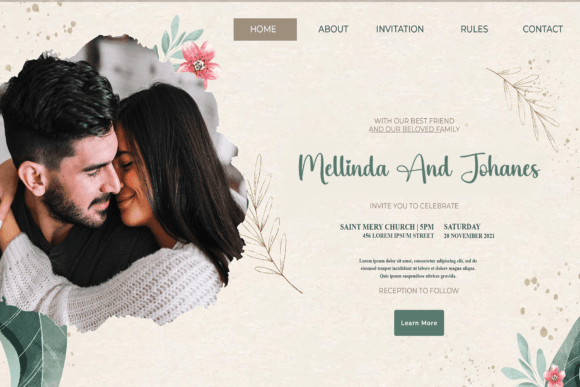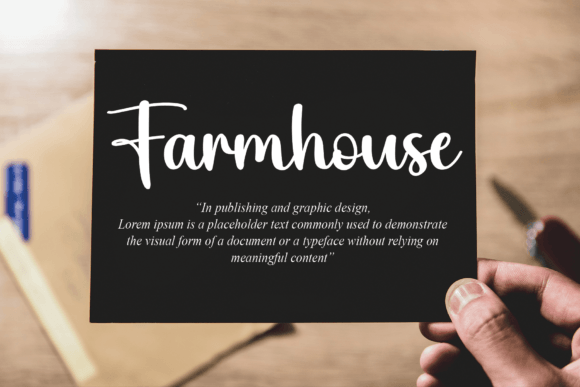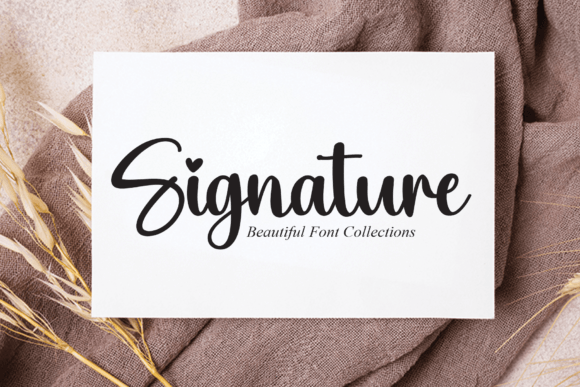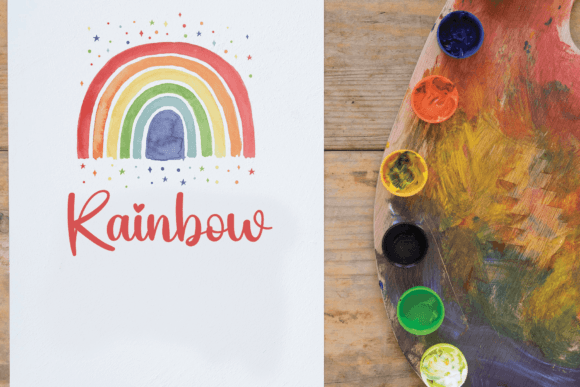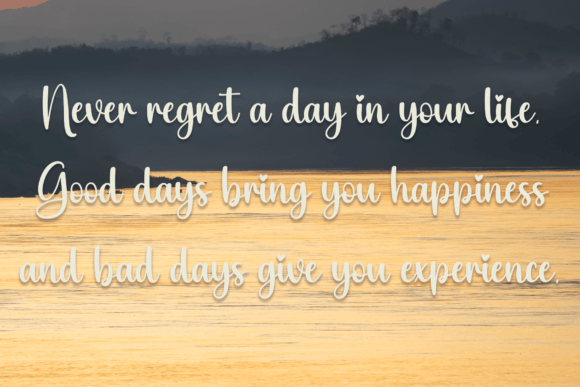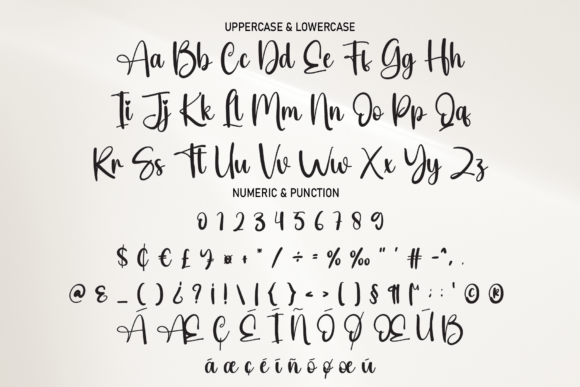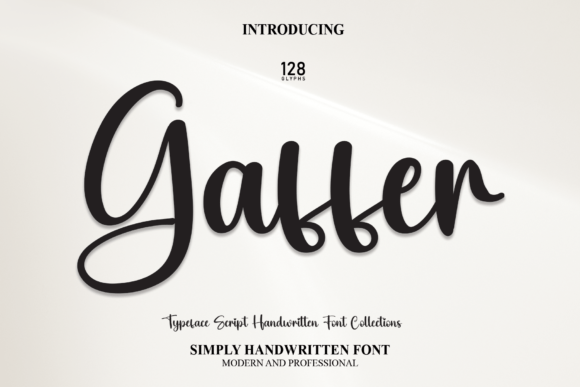
Introducing Gaffer Font: The Sweet and Elegant Cursive Handwritten Font
Are you looking for a font that can add a touch of elegance and romance to your designs? Look no further than Gaffer Font, a sweet and cursive handwritten font that is perfect for a variety of design projects. With its gentle and flowing curves, Gaffer Font is sure to make your designs stand out and leave a lasting impression.
What Makes Gaffer Font Special?
Gaffer Font is a unique and beautiful font that is perfect for designers and crafters who want to add a touch of sophistication and elegance to their work. Here are some of the key features that make Gaffer Font special:
• Sweet and Cursive: Gaffer Font is a cursive handwritten font that is sweet and elegant. Its flowing curves and gentle lines make it perfect for designs that require a touch of sophistication.
• Versatile: Gaffer Font is a versatile font that can be used on a variety of design projects, from branding and logos to wedding things, greeting cards, and marketing promotions.
• Easy to Read: Despite its elegant and cursive nature, Gaffer Font is easy to read and understand, making it perfect for designs that require a clear and concise message.
• Fancy yet Casual: Gaffer Font is a font that can add a touch of elegance and sophistication to your designs without making them look too formal or stuffy.
Gaffer Font is a font that can be used on a wide range of design projects, including:
• Branding and Logos: Gaffer Font is perfect for creating elegant and sophisticated brand identities that will help you stand out from the competition.
• Wedding Things: Gaffer Font is a popular choice for wedding designs, including invitations, save-the-date cards, and wedding stationery.
• Greeting Cards: Gaffer Font is perfect for creating beautiful and elegant greeting cards for special occasions, such as birthdays, anniversaries, and holidays.
• Fashion and Lookbook: Gaffer Font is a great choice for fashion designers and brands who want to create elegant and sophisticated lookbooks and marketing materials.
• Marketing Promotions: Gaffer Font can be used to create eye-catching and effective marketing materials, such as brochures, flyers, and posters.
Why Choose Gaffer Font?
There are many reasons why you should choose Gaffer Font for your design projects. Here are a few:
• Unique and Elegant: Gaffer Font is a unique and elegant font that will help you create designs that stand out from the competition.
• High-Quality: Gaffer Font is a high-quality font that is designed to look great on any device or platform.
Tips for Using Gaffer Font
Here are a few tips for using Gaffer Font in your design projects:
• Use it Sparingly: Gaffer Font is a elegant and sophisticated font, so use it sparingly to avoid overwhelming your designs.
• Pair it with Other Fonts: Gaffer Font can be paired with other fonts to create a unique and interesting design.
• Experiment with Different Sizes: Gaffer Font can be used at a variety of sizes, from large headings to small body text.
• Have Fun: Most importantly, have fun and be creative with Gaffer Font!
In conclusion, Gaffer Font is a sweet and elegant cursive handwritten font that is perfect for designers and crafters who want to add a touch of sophistication and elegance to their work. With its versatile and easy-to-read design, Gaffer Font is perfect for a wide range of design projects, from branding and logos to wedding things and marketing promotions. So why wait? Download Gaffer Font today and start creating beautiful and elegant designs!